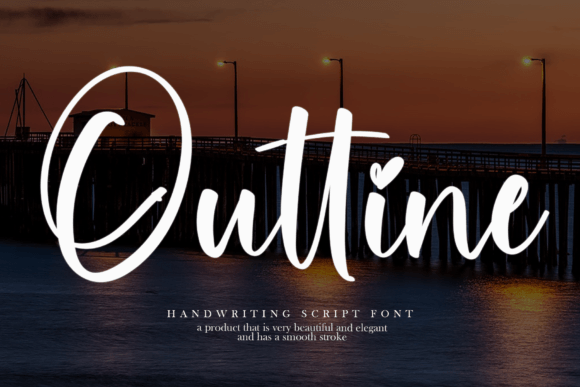
Introducing Outtine, the Whimsical Script Font Captivating Hearts in 2015
In a digital world saturated with uniformity, Outtine emerges as a beacon of originality, a font that dances across screens with its playful, casual charm. Its handwritten strokes, reminiscent of heartfelt notes penned by a close friend, infuse warmth and a sense of familiarity into your digital creations.
As a web designer, you understand the power of fonts to elevate your designs, to make them speak to your audience in a unique and memorable way. Outtine is not just another font; it's an experience, a conversation starter that draws eyes and sparks curiosity.
Imagine crafting a website that feels like a warm embrace, inviting visitors to stay and explore. Outtine's friendly curves and elegant flourishes create a welcoming ambiance, making your site a place where people want to linger.
And it's not just about aesthetics. Outtine is also a practical choice for web design. Its clear and legible letterforms ensure that your content is easily readable, even on smaller screens. Its versatility shines through in both large headlines and smaller body text, making it the perfect choice for a variety of design projects.
But Outtine's charm extends beyond the digital realm. Its handwritten style makes it an ideal choice for DIY projects, adding a personal touch to cards, invitations, and other paper crafts. Let your creativity flow as you transform ordinary objects into works of art, using Outtine to add a dash of whimsy and a sprinkle of love.
So why settle for ordinary fonts when you can have Outtine, the font that brings life to your designs and touches hearts with its casual elegance? Embrace the beauty of handwritten charm and let Outtine elevate your creative projects to new heights.